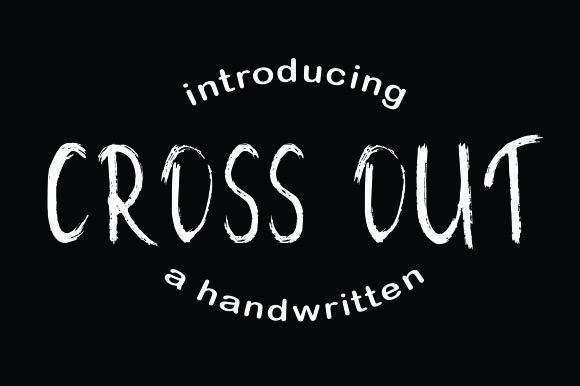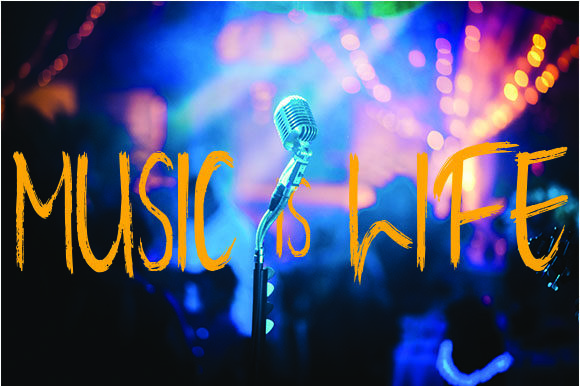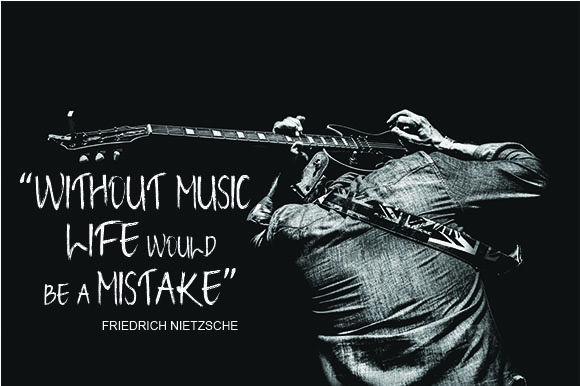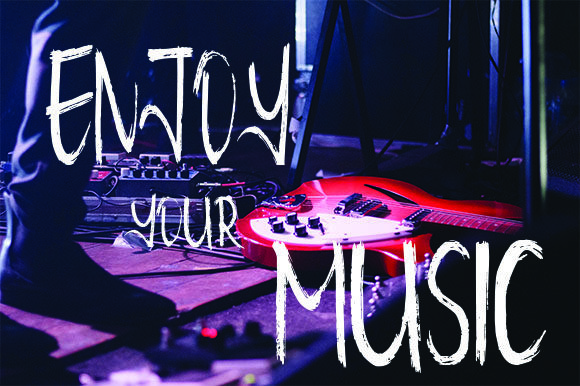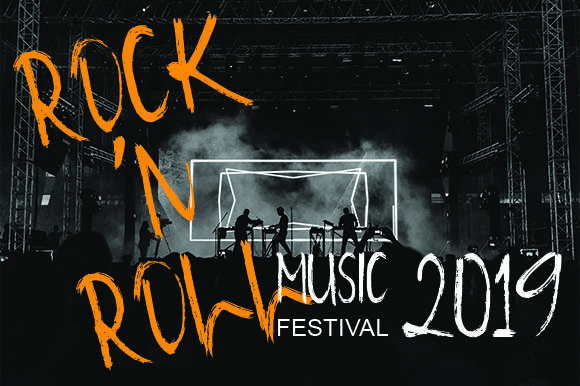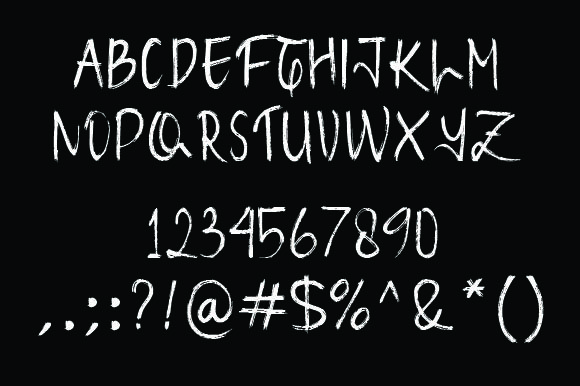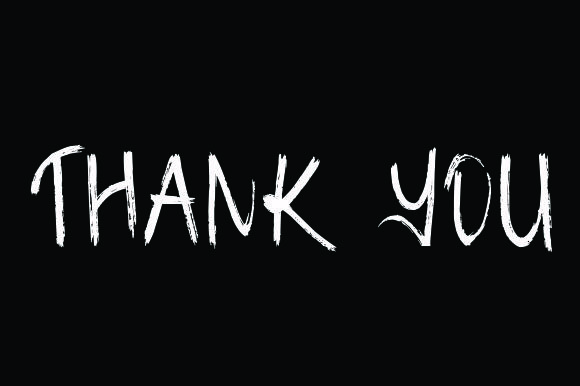
Cross out Font
About Cross out Font
The Cross Out is an unique font. Its handwritten style will give a natural touch to your logos, posters, flyers, and much more!